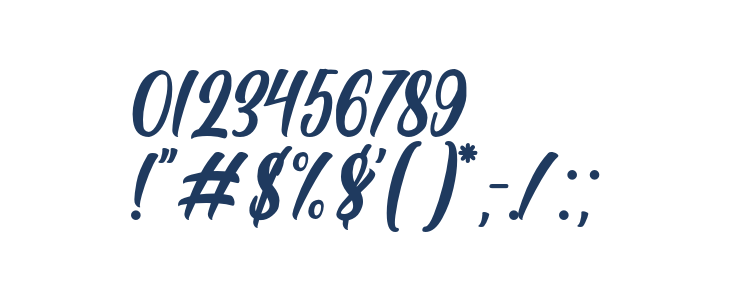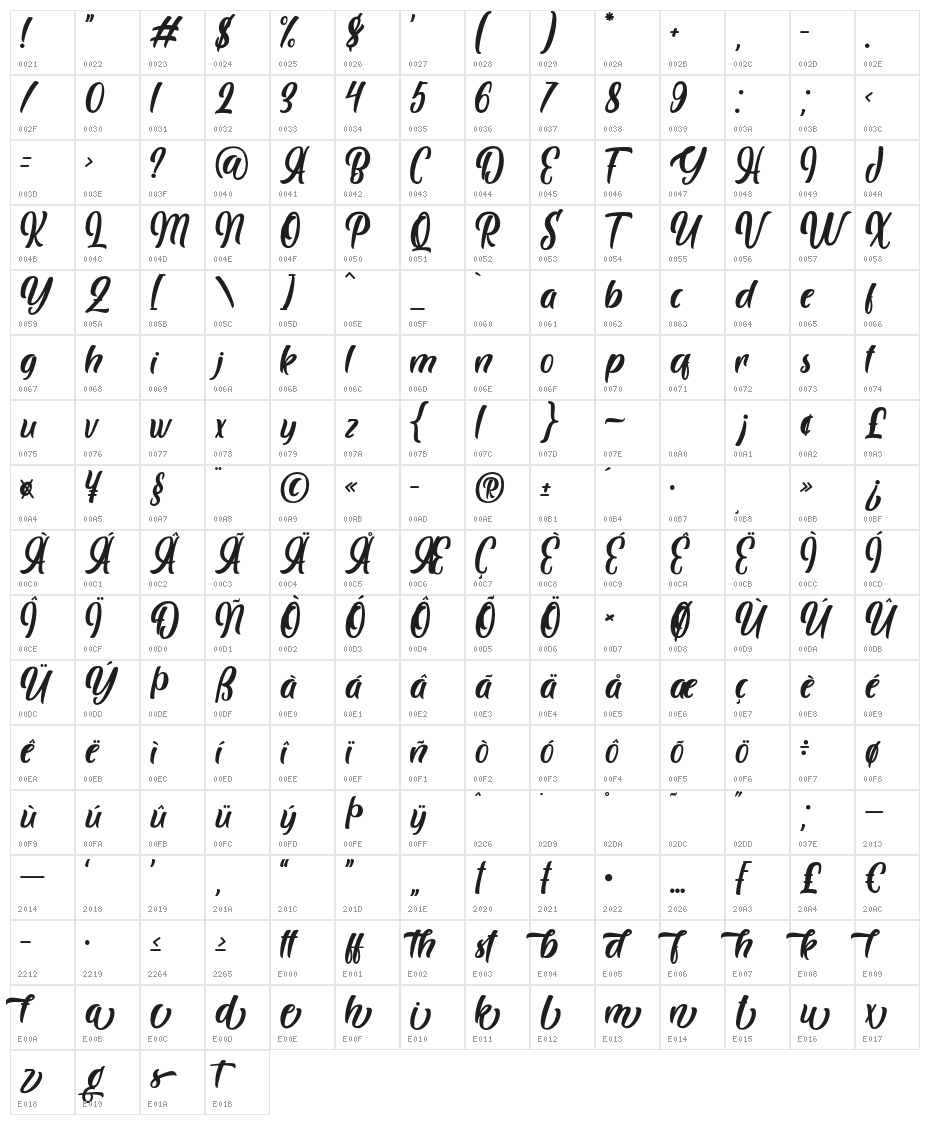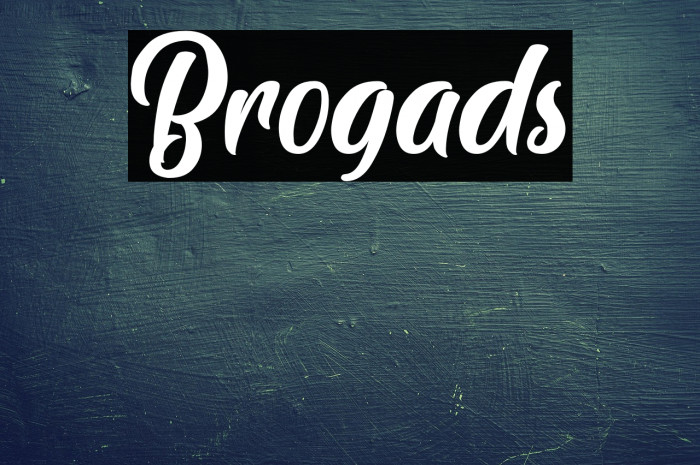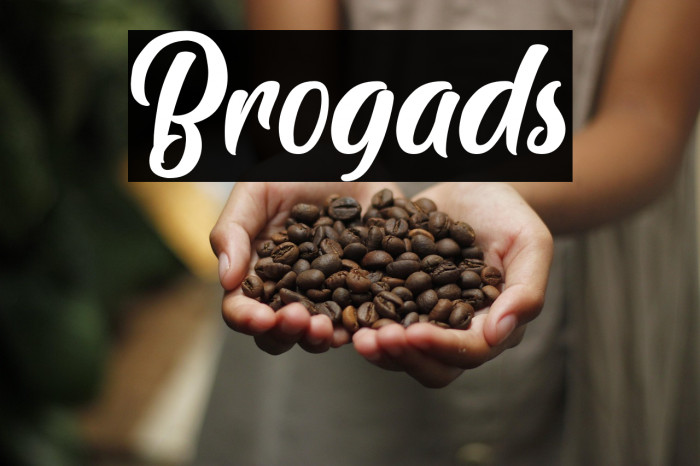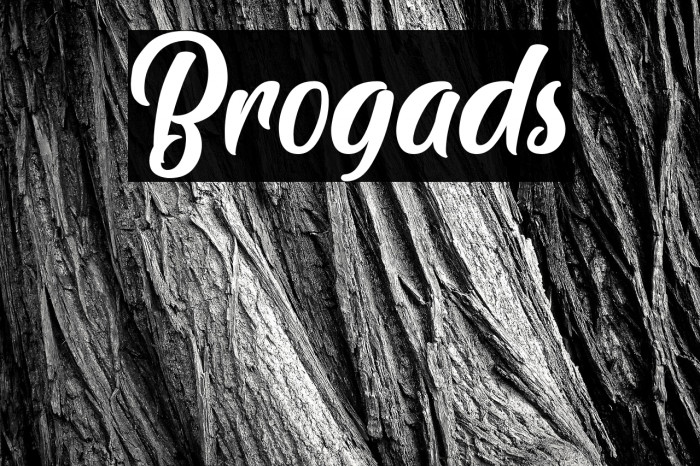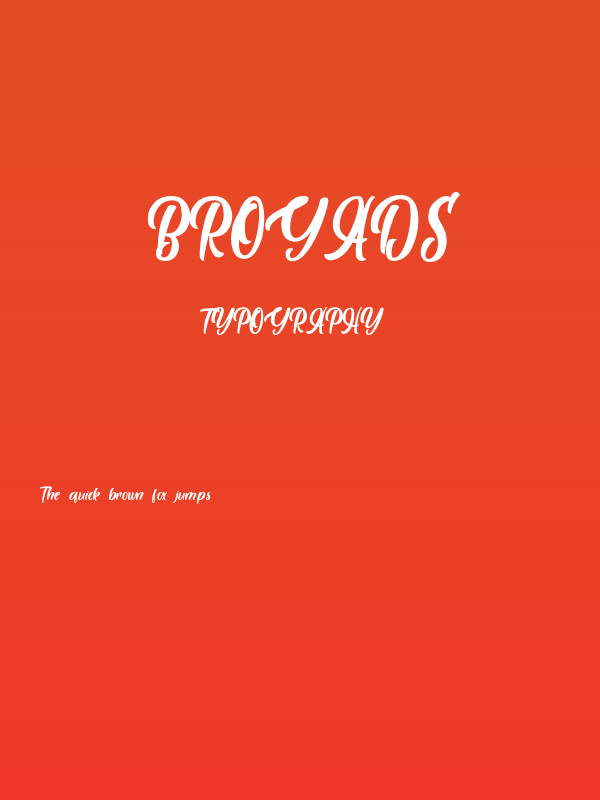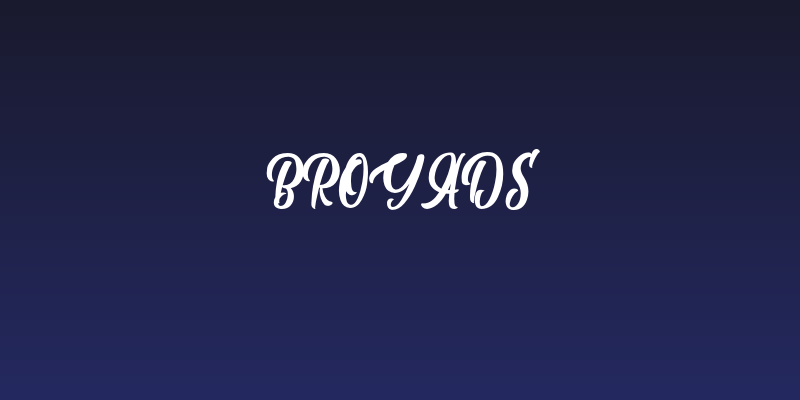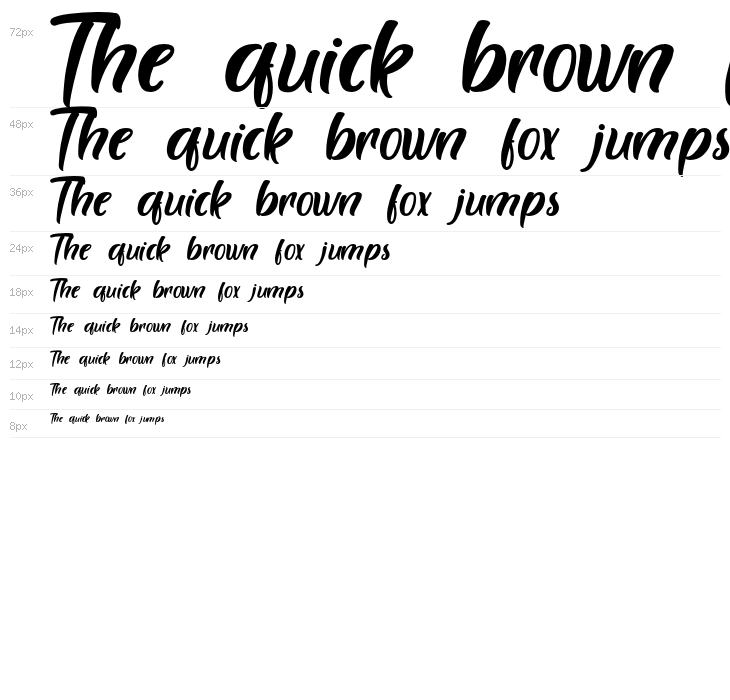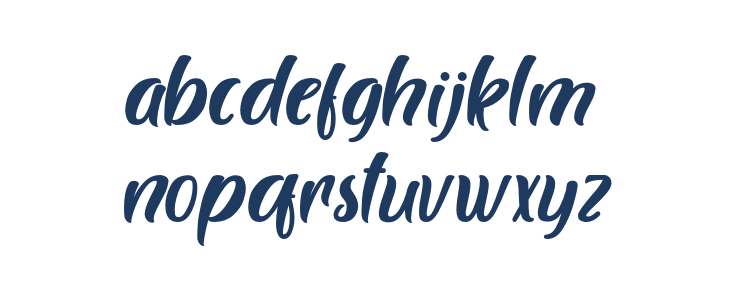
Brogads Font
Brogads Description
This font features a bold and expressive script style, characterized by its flowing, cursive letterforms that convey a sense of elegance and dynamism. The uppercase letters are particularly striking, with sweeping curves and a rhythmic flow that suggests movement. The lowercase letters maintain this fluidity, offering a harmonious balance between readability and artistic flair. The numerals and special characters are crafted with the same attention to detail, ensuring consistency across all glyphs. This font's bold weight and medium contrast make it suitable for impactful designs where a touch of sophistication is desired.
| Use Case | Logos, Headlines, Invitations |
| Proposed Projects | Ideal for wedding invitations, branding, logos, and elegant packaging designs. |